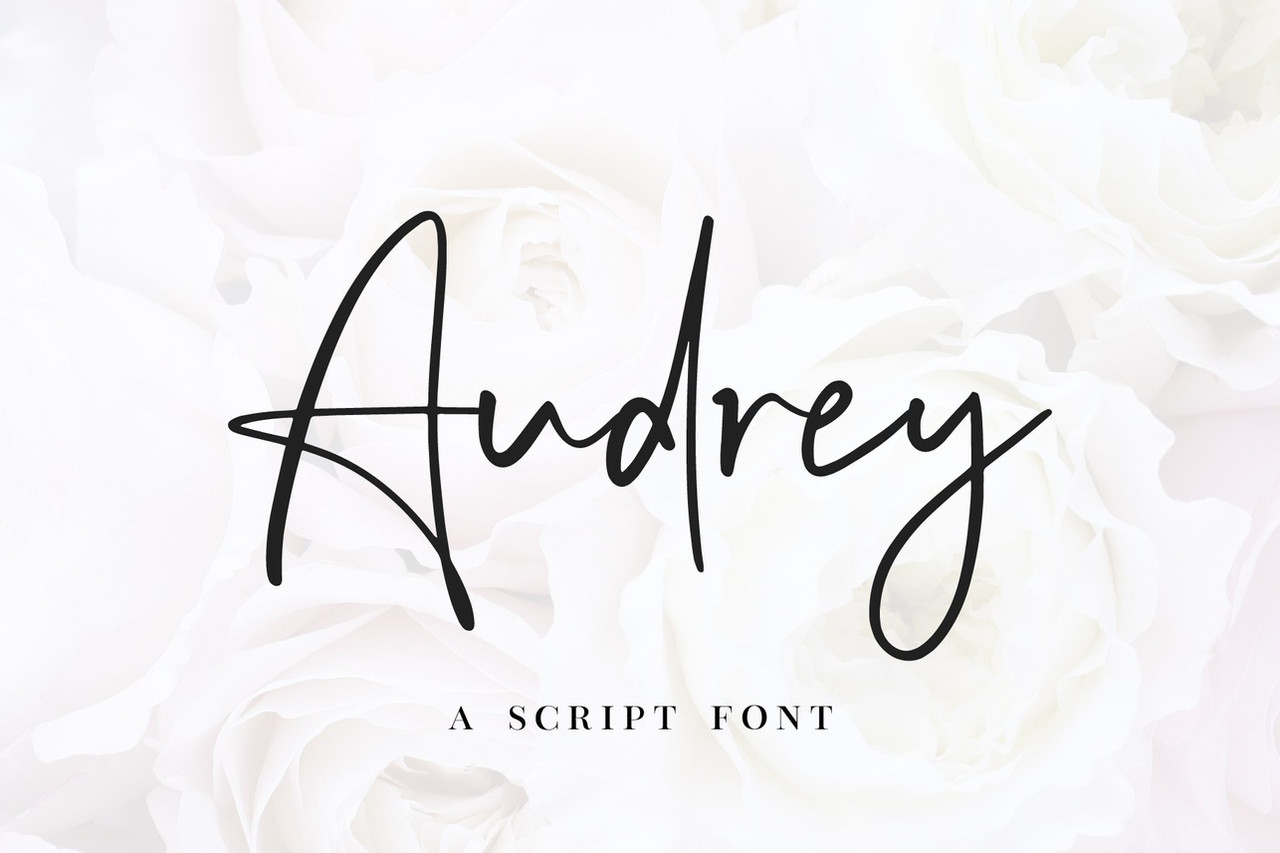
Introducing **Audrey**, a feminine, but slightly edgy and fun handwritten script font. This font stands perfectly on its own for Logos and Quotes, or works great paired with an all caps serif or sans serif, as pictured above. This font is perfect for Logos and comes with a large range of Ligatures to give it a super hand-written feel. --- This purchase includes: